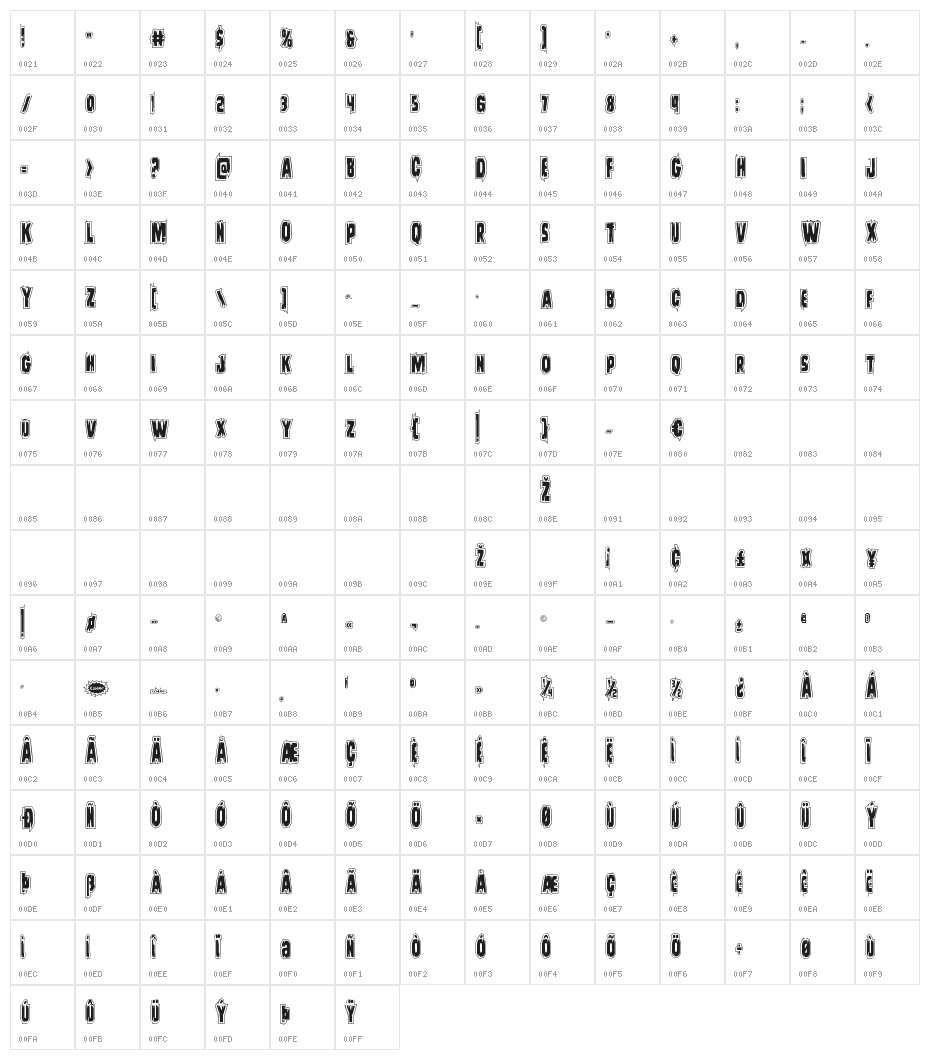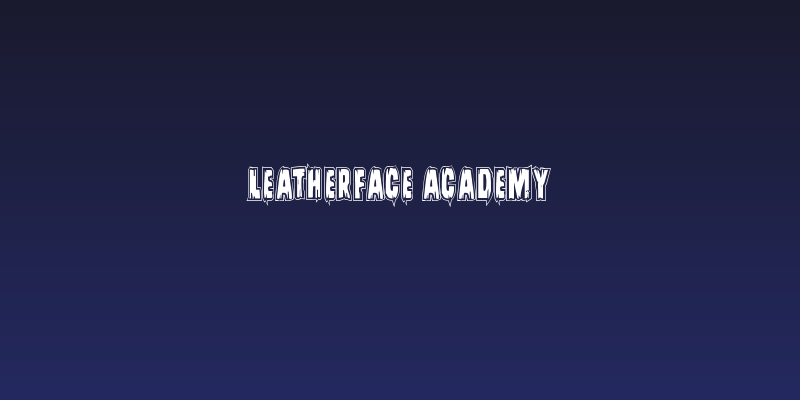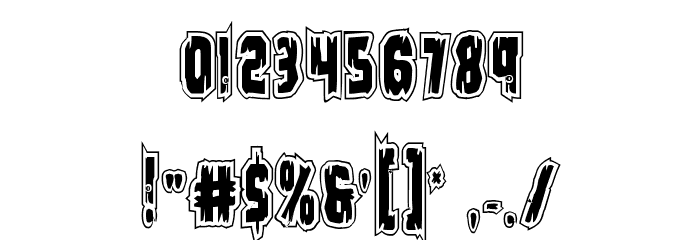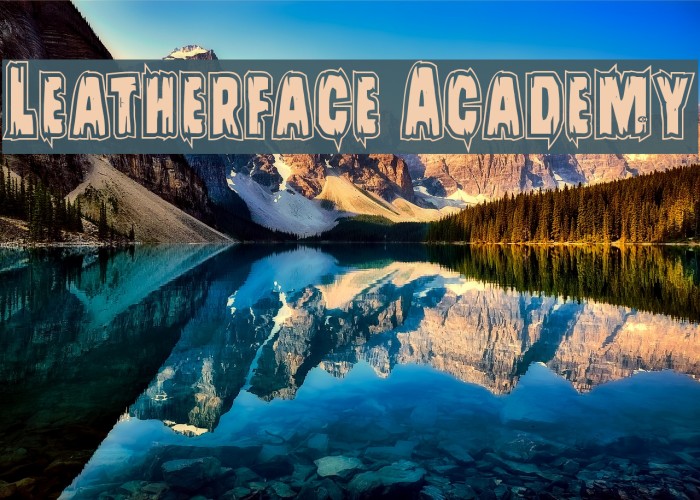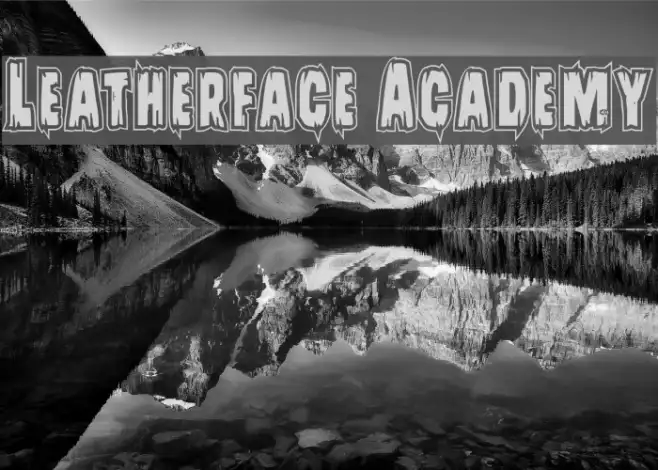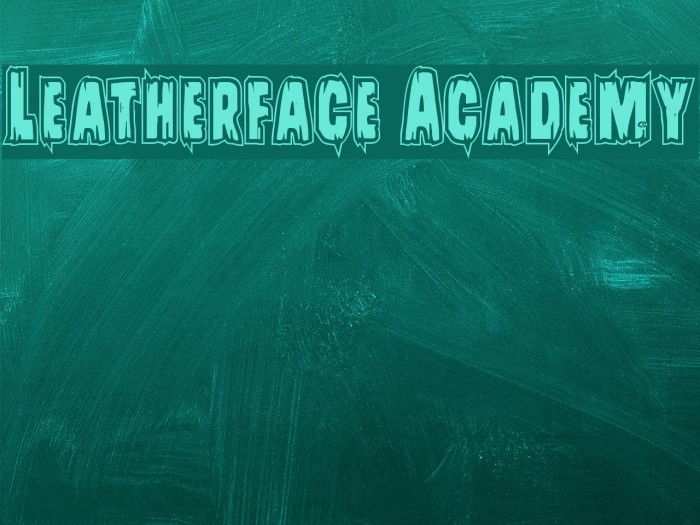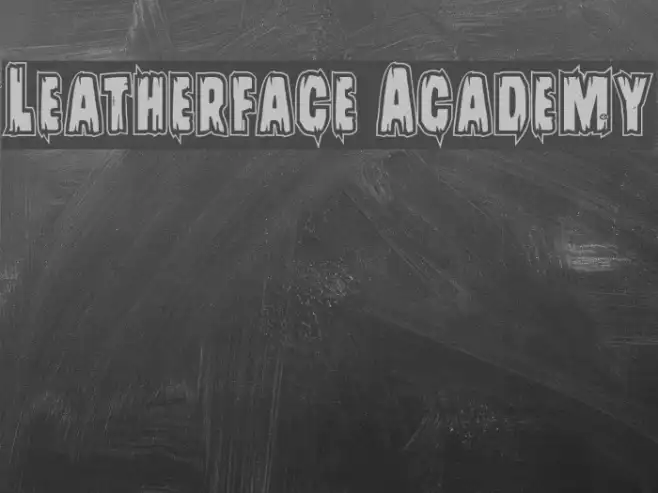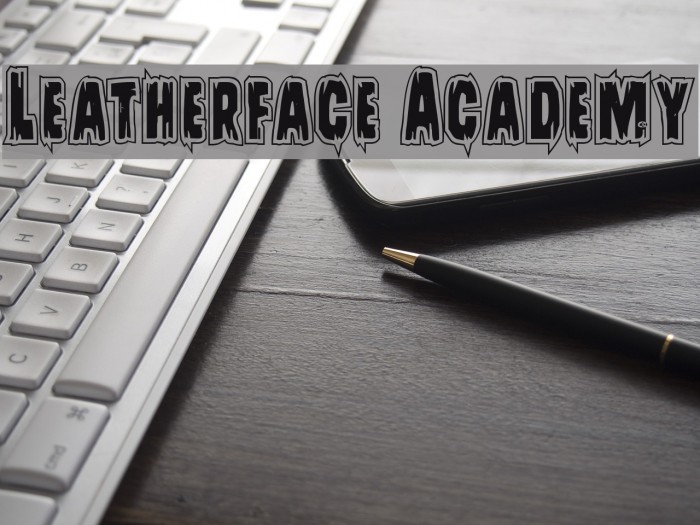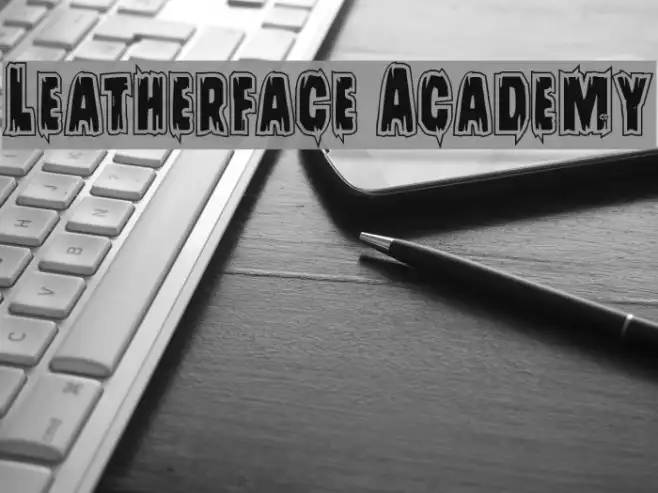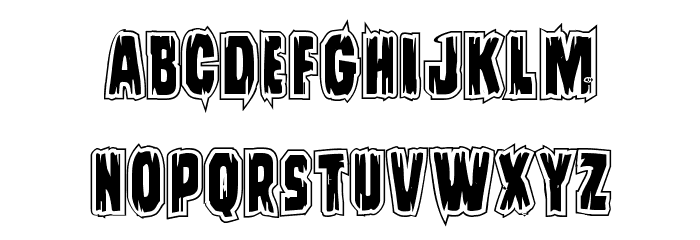
Leatherface Academy Font
Leatherface Academy Description
This font features a bold, edgy style with a distressed appearance, giving it a rugged and intense look. The characters are outlined with a thick black border, enhancing their prominence and making them stand out. The inner portions of the letters have a textured, uneven fill that adds to the chaotic and dynamic feel. This font is designed to capture attention and convey a sense of urgency or excitement, making it ideal for projects that require a strong visual impact.
| Proposed Projects | Ideal for horror-themed posters, Halloween event flyers, edgy branding, or any design needing a dramatic and intense typeface. |